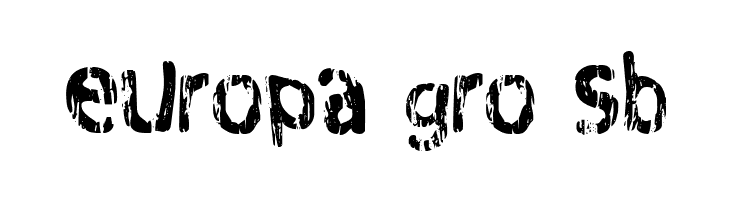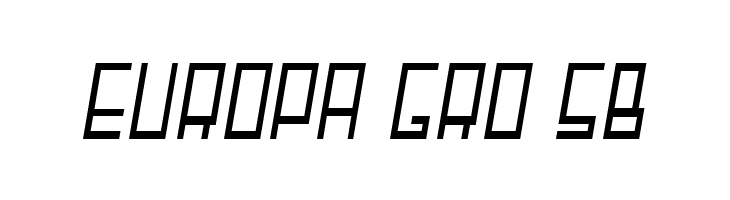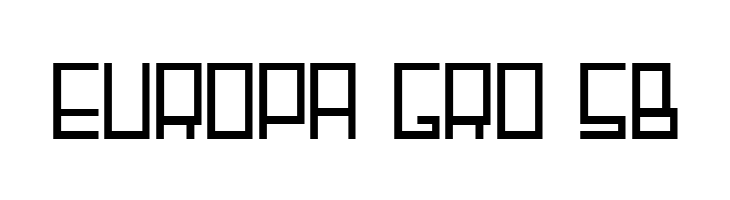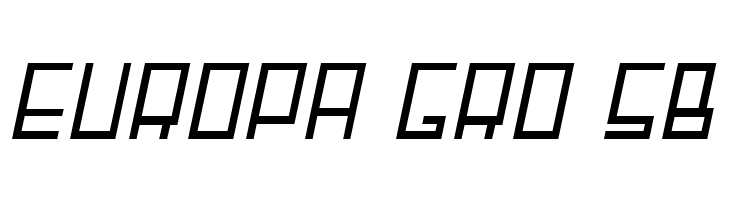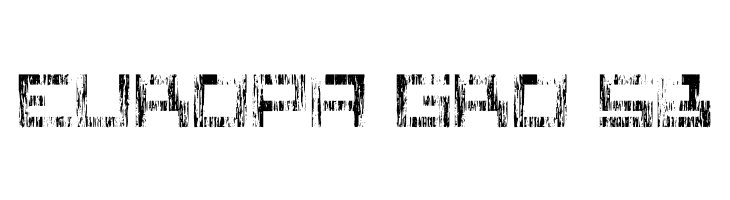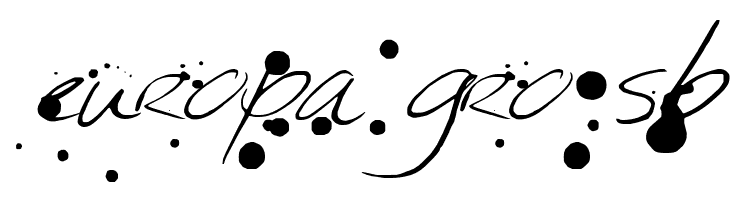
A distressed, grungy font with a bold, hand-painted appearance.
A modern, pixelated font composed of 3x3 dot grids, offering a playful and tech-inspired aesthetic.
A geometric, condensed, and italicized font with a modern, technical style.
A geometric, square-based font with a modern, digital aesthetic.
A geometric, angular italic font with a modern and technical style.
A distressed, geometric font with a grunge texture.
A chaotic, hand-drawn font with a graffiti-like style.
A bold, geometric font inspired by ancient runic alphabets.
An artistic, ink-splattered handwritten font with dynamic flair.
A playful, polka-dotted font with bold, irregular characters.